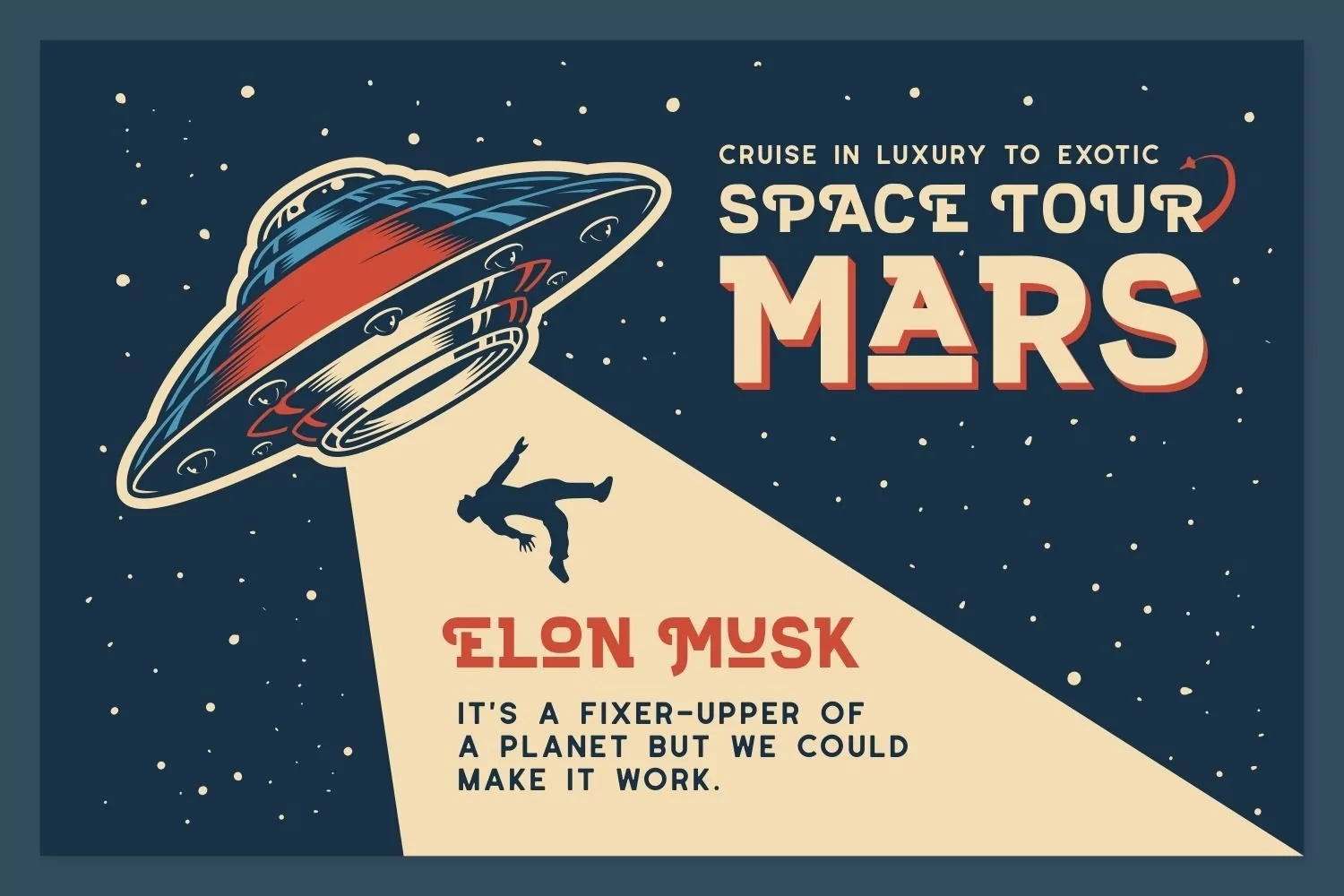
Brandon is a san serif display come with vintage themes. This font have different style of vowels character alphabet (a,e,i,o, and u). It matches applies in some designs such as the logotype, brand, packaging, quotes, poster, t-shirt, book, invitation and more custom design. The features uppercase, lowercase, numeral, punctuation & symbol, multilingual support, PUA encoded (fully accessible without additional design software).
Brandon